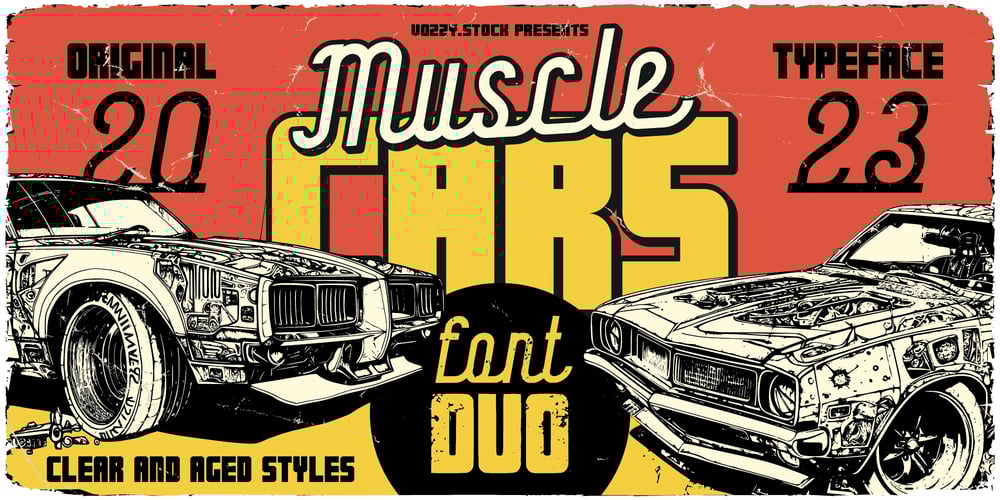
Muscle Cars Font Family was designed by Oleg Voznyy and published by Vozzy. Muscle Cars contains 4 styles and family package options. Introducing vintage label font duo named Muscle Cars. These two fonts has an additional characters and multilungual support (check out all available characters on previews). Bold and Script fonts has two styles: Clean and Aged. This font will look good on any vintage styled designs like a poster, T-shirt, label, logo, etc.